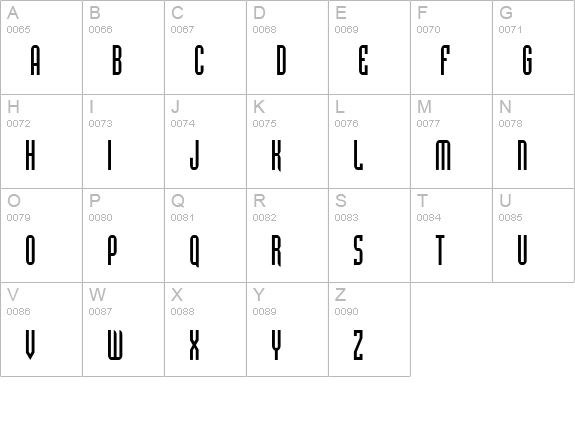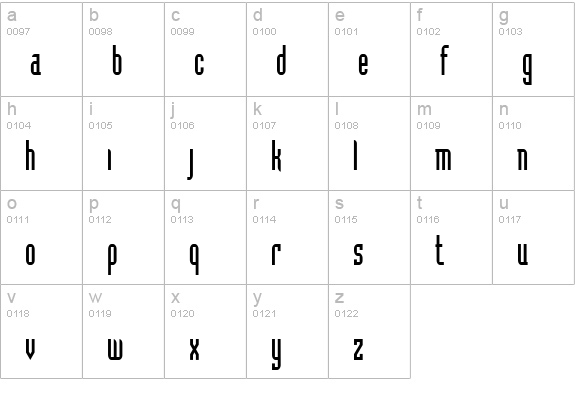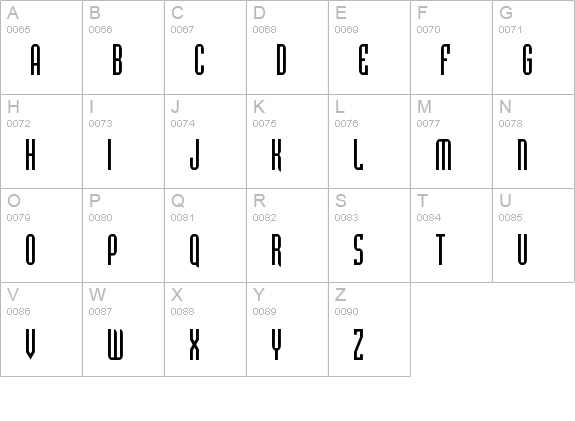
Flintstone Condensed Normal Font Details
Flintstone Condensed Normal is the standard, neutral, condensed-width variant in the Flintstone typeface family \xE2\x80\x94 well suited to general body text, paragraphs, and standard typographic work.
Flintstone Condensed Normal font is a sleek and modern typeface that exudes a sense of sophistication and professionalism. With its clean lines and sharp edges, this font is perfect for a wide range of design projects, from branding to web design. One of the best things about Flintstone Condensed Normal font is that it is completely free to download. You can easily access this stylish font at FontsMarket.com, where you can enhance your creative projects without spending a penny. Whether you're looking to create eye-catching logos, stylish headlines, or elegant invitations, Flintstone Condensed Normal font is a versatile choice that will elevate your designs to the next level. Download it now and unleash your creativity with this exceptional typeface.